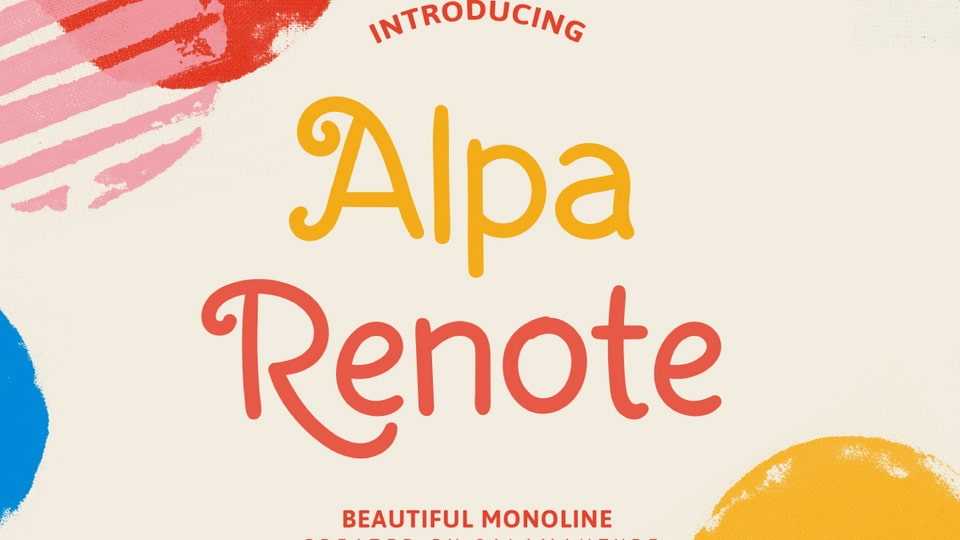
Download Alpa Renote font, a beautiful, cute, and playful handwritten typeface. With its charming and casual style, this font is perfect for stationery, notes, kids’ products.